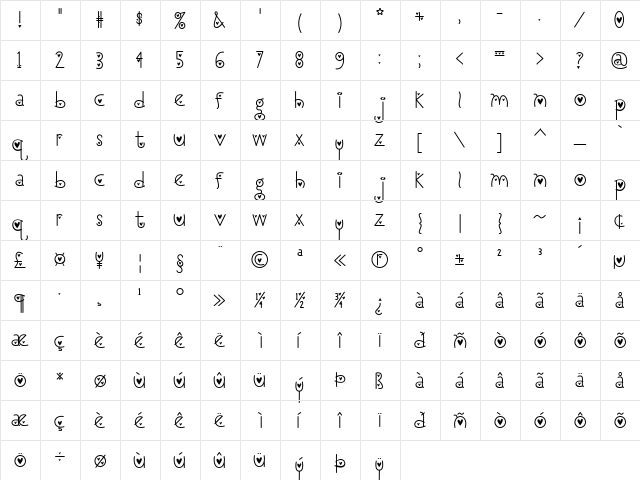
I Love You Monkey (Hearted) Regular
| Foundry | Misti's Fonts (Misti Hammers) |
| Designer | Misti's Fonts (Misti Hammers) |
Design Context for I Love You Monkey (Hearted) Typeface
I Love You Monkey (Hearted) is a composed and adaptable typeface that performs quietly and consistently across a wide range of design contexts.